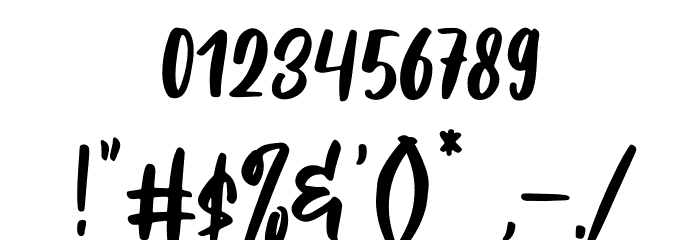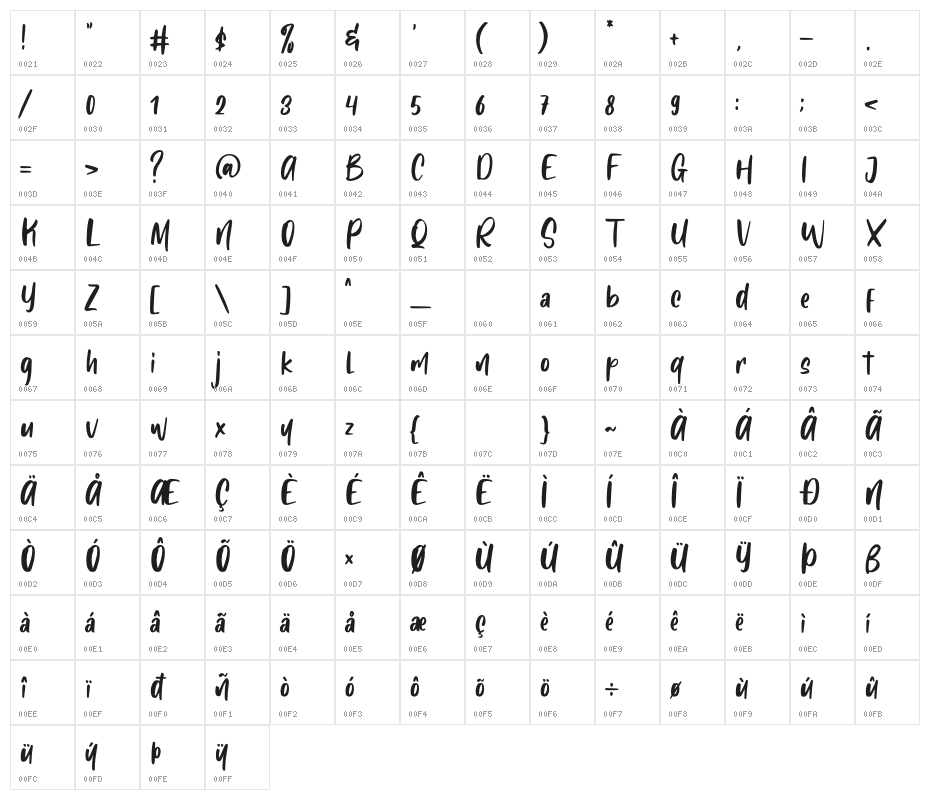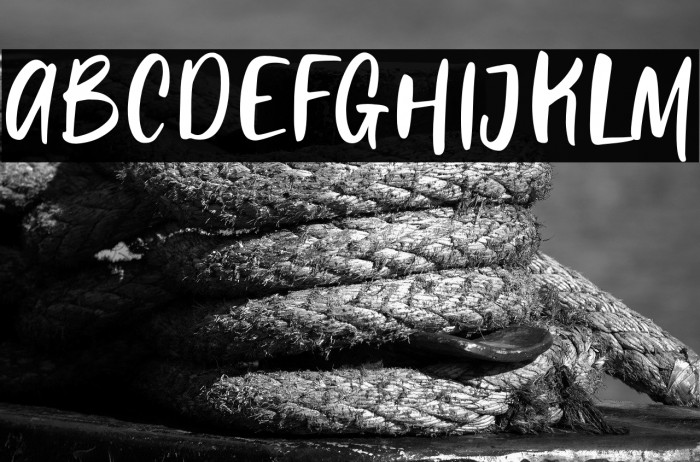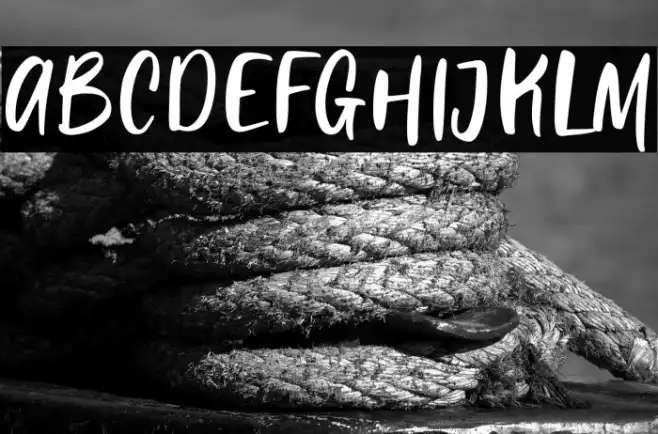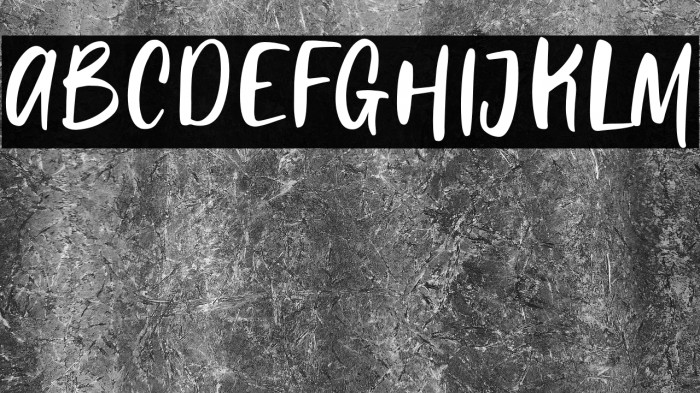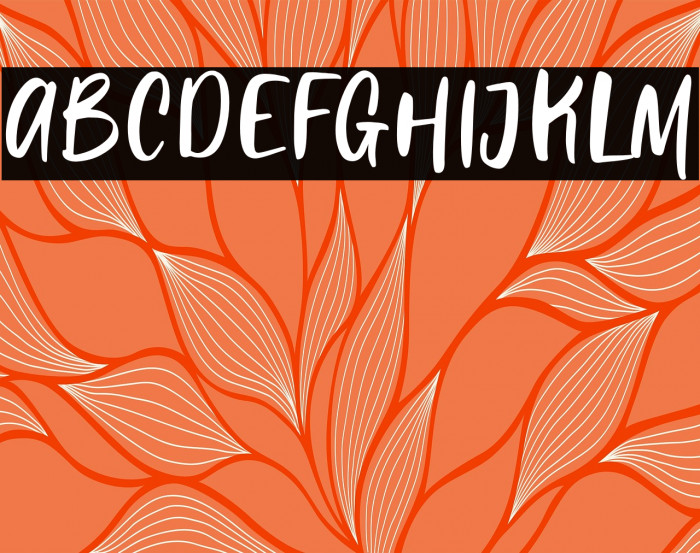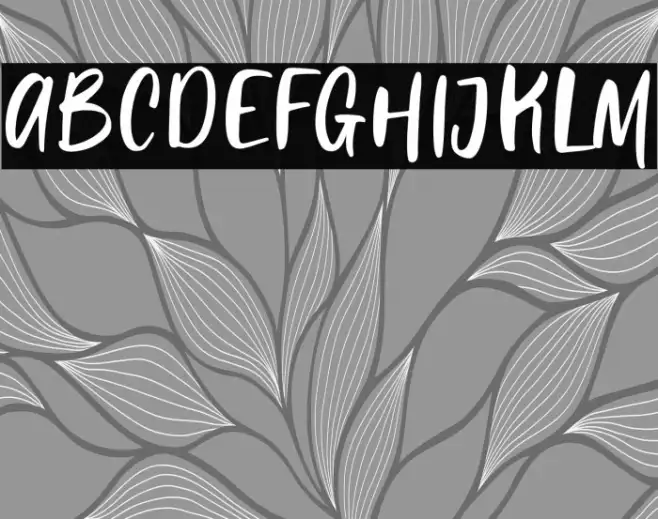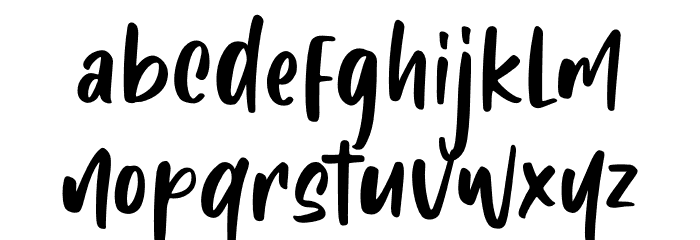
Ladaku Hitam Font
Ladaku Hitam Description
This font features a bold, handwritten style with a playful and energetic appearance. The letters are slightly slanted, giving a dynamic and informal feel. The strokes are thick and consistent, with a smooth flow that mimics natural handwriting. The uppercase and lowercase letters maintain a cohesive look, while the numbers and special characters integrate seamlessly with the overall design. This font's lively character makes it suitable for creative and expressive projects.
| Proposed Projects | Ideal for greeting cards, posters, social media graphics, and branding that requires a personal touch. |